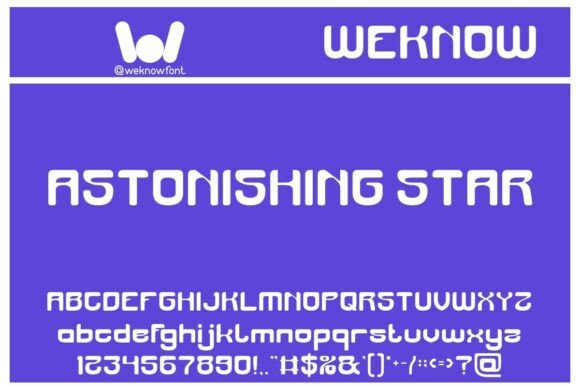
Introducing Astonishing Star
“Astonishing Star” is more than just a font; it’s an experience. This futuristic display font combines techno and sci-fi elements to transport you to a world of endless possibility. Its bold and rounded features evoke a sense of nostalgia, reminiscent of retro-futurism, while its clean lines and geometric shapes make it undeniably modern. Whether you’re a designer, crafter, or creative hobbyist, this font is sure to elevate your work.
- ✨ Versatility: From logos and headlines to fashion designs and movie posters, Astonishing Star adapts seamlessly to any project.
- ✅ Easy to Read: Despite its bold features, the font remains surprisingly legible, making it perfect for titles, headings, and short paragraphs.
- 💫 Unique Personality: The blend of techno and sci-fi elements gives Astonishing Star a distinct personality that’s hard to find in other fonts.
While Astonishing Star is an incredible font, it’s not without its quirks. For instance, ⚠️ some users may find that the font’s bold features can make it difficult to use for body text or long paragraphs. Additionally, 🤔 the font’s sci-fi elements may not be suitable for all design projects, such as those requiring a more traditional or elegant look.
The Designer Inspiration Behind Astonishing Star
According to its creators, Astonishing Star was inspired by the futuristic visions of the 1950s and 60s, where space travel and technology were the ultimate frontiers. The font’s designers wanted to capture the optimism and sense of adventure that defined this era, while also incorporating modern elements to make it relevant for contemporary designs.
| Font Name | Astonishing Star Font |
| Author | weknow |
Q: Is Astonishing Star suitable for body text?
A: While Astonishing Star is primarily designed for titles and headings, it can be used for short paragraphs or body text. However, its bold features may make it less suitable for long blocks of text.
Q: Does Astonishing Star support OpenType features?
A: Yes, Astonishing Star supports OpenType features, including glyphs, stylistic alternates, and more.